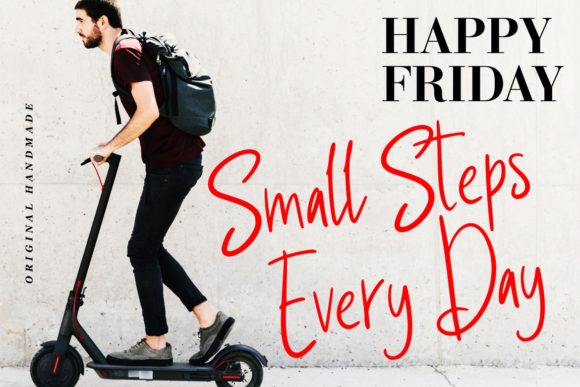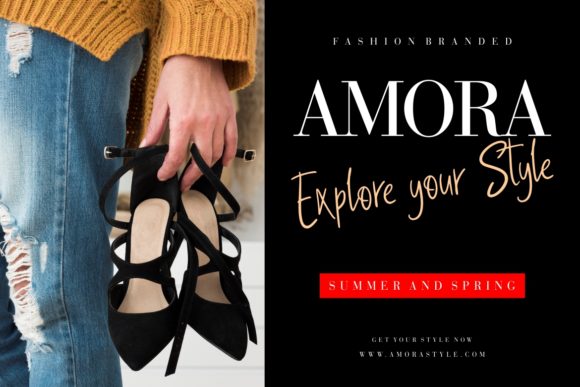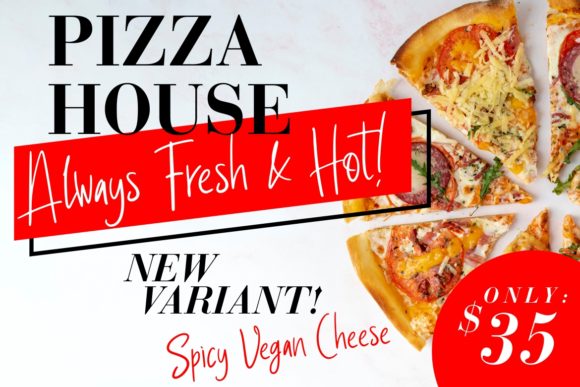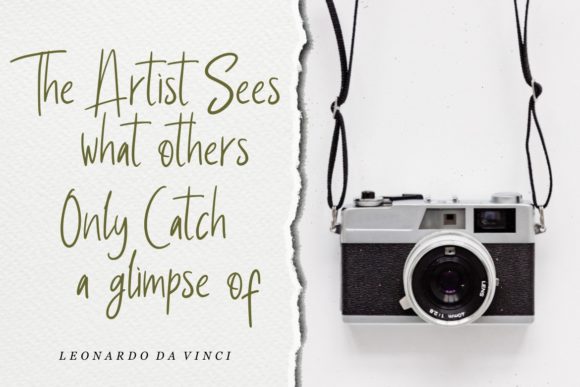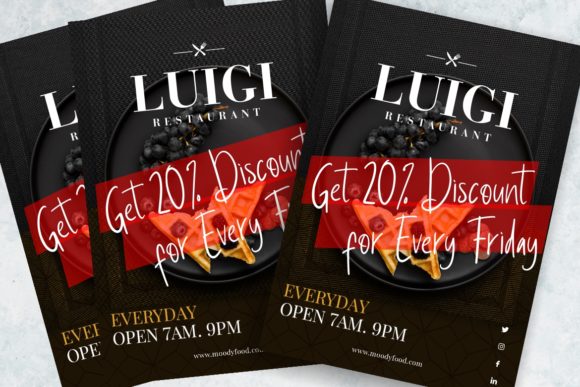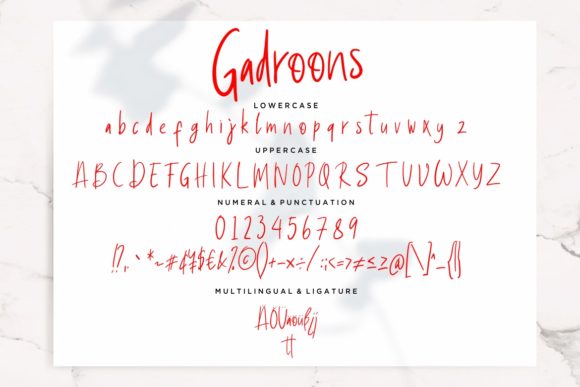
Introduction to Gadroons Font
Gadroons is a casual handwritten font.
Due to its relaxed and simple style, this font has the ability to fit each of your creative ideas .
Key Features of Gadroons Font